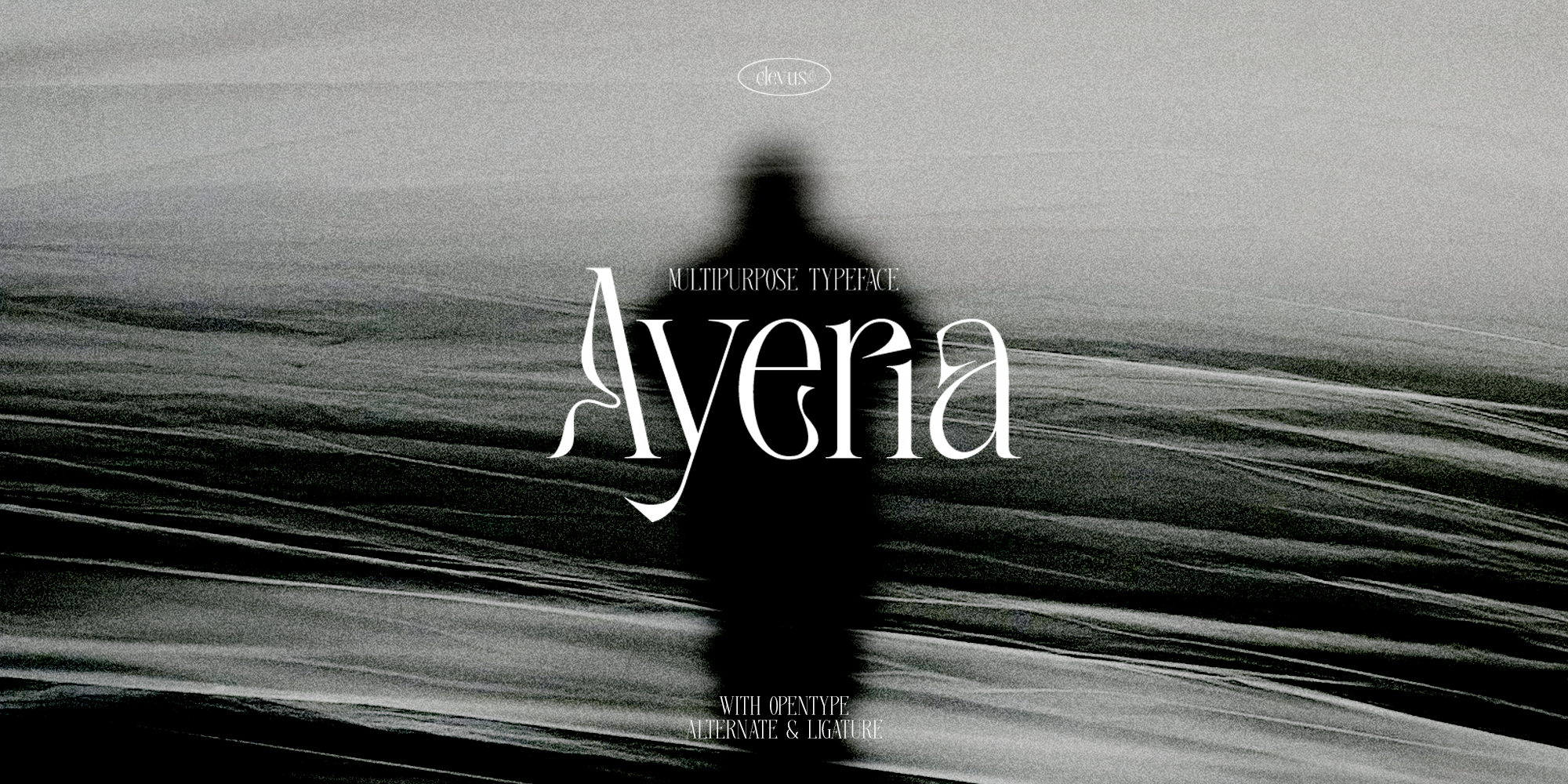
Ayeria Font Free Download – A Dreamy Blend of Elegance and Simplicity
Searching for a font that radiates subtle elegance and modern minimalism? Ayeria Font Free Download is your go-to typeface for creating beautiful, refined designs. With its soft curves, balanced spacing, and delicate structure, Ayeria is perfect for branding, editorial layouts, lifestyle blogs, wedding invitations, and even product packaging.
Ayeria doesn’t scream for attention—it whispers sophistication. Its clean yet artistic character gives your work a professional, curated look. Whether you’re working on a feminine logo, crafting elegant Instagram posts, or designing a high-end portfolio, Ayeria brings just the right amount of charm and clarity.
Let your typography breathe with elegance and calm confidence. Ayeria is not just a font; it’s a design companion that elevates your creative vision and adds a refined personality to every project.